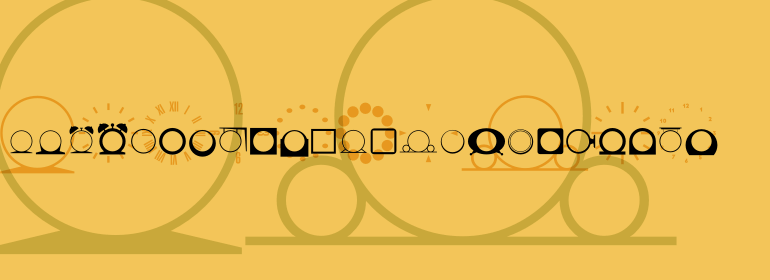
Anytime Now
Font Family by Device
Anytime Now is a modern dingbat font family by Device built around clean geometric forms and time-themed symbols. Its look is minimalist and modular, with circular motifs, countdown markers, outlined strokes, solid fills, and UI-style glyphs that give the set a crisp, graphic presence.
With 136 glyphs in a single style, this collection is well suited to designers who want symbols that feel precise, contemporary, and easy to combine. Use it to add icons, ornamental accents, interface-inspired details, or structured graphic elements to posters, branding systems, packaging, editorial layouts, and other display work that benefits from bold monochrome shape language.